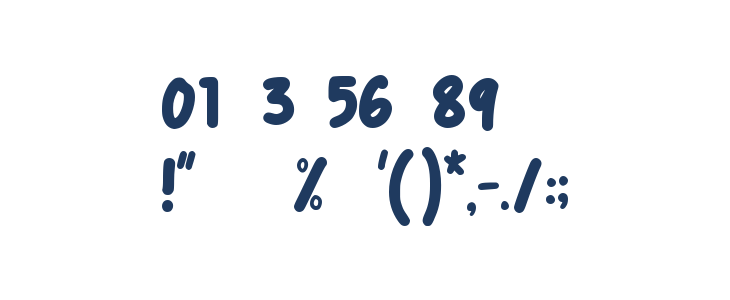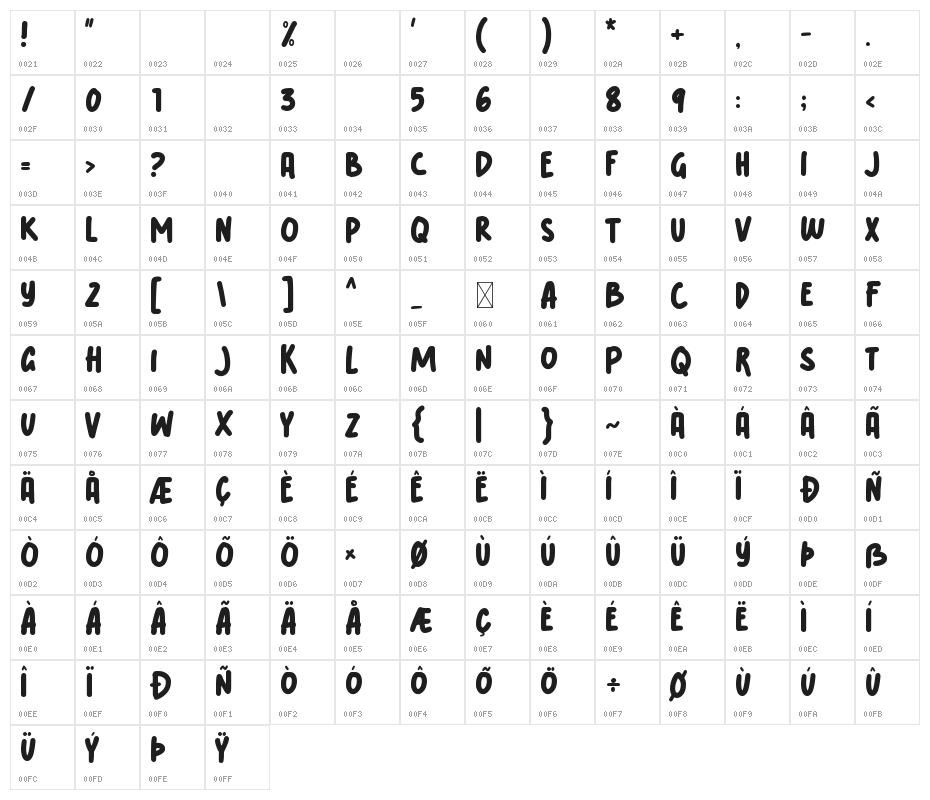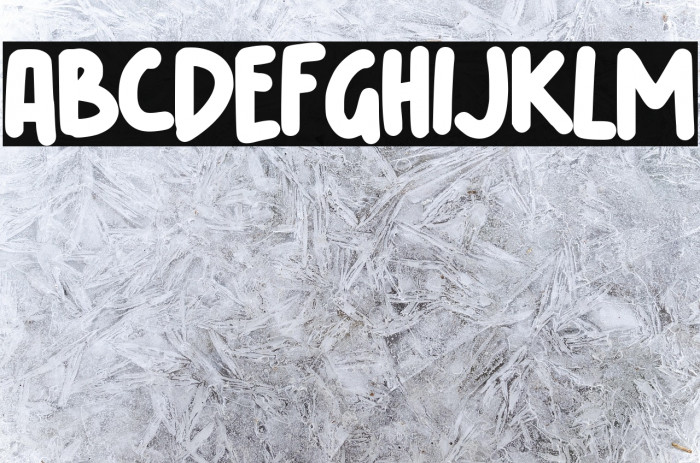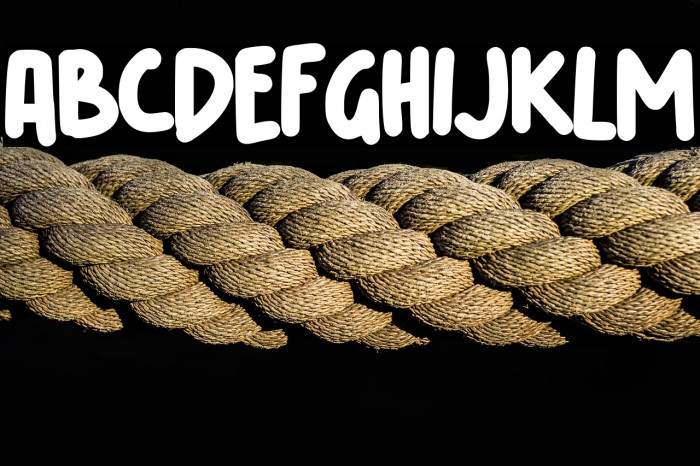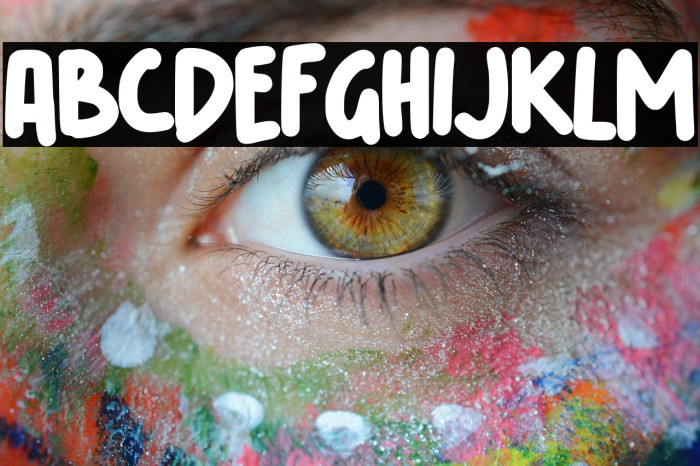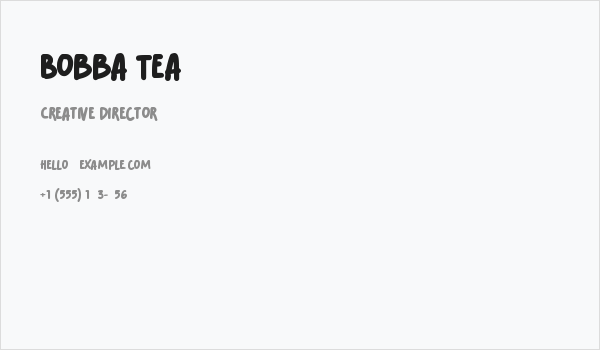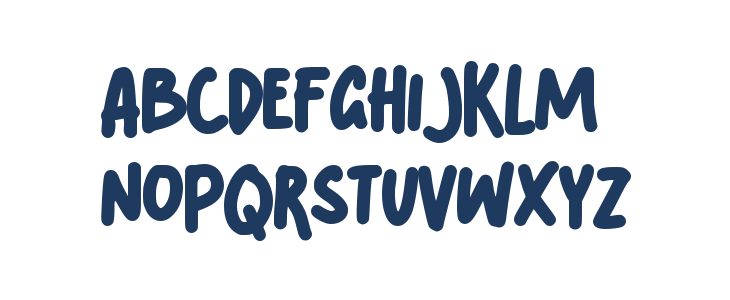
Bobba Tea Font
Bobba Tea Description
This font features a bold and playful design with rounded edges and a hand-drawn aesthetic. The characters are thick and slightly irregular, giving them a casual and friendly appearance. The uppercase and lowercase letters maintain a consistent style, with a slight slant that adds to the dynamic feel. The numbers and special characters are equally bold, ensuring readability and visual impact. This font is ideal for projects that require a fun and approachable look, such as children's books, playful branding, or creative posters.
| Overall Style | Playful |
| Proposed Projects | Ideal for children's books, playful branding, creative posters, and casual invitations. |